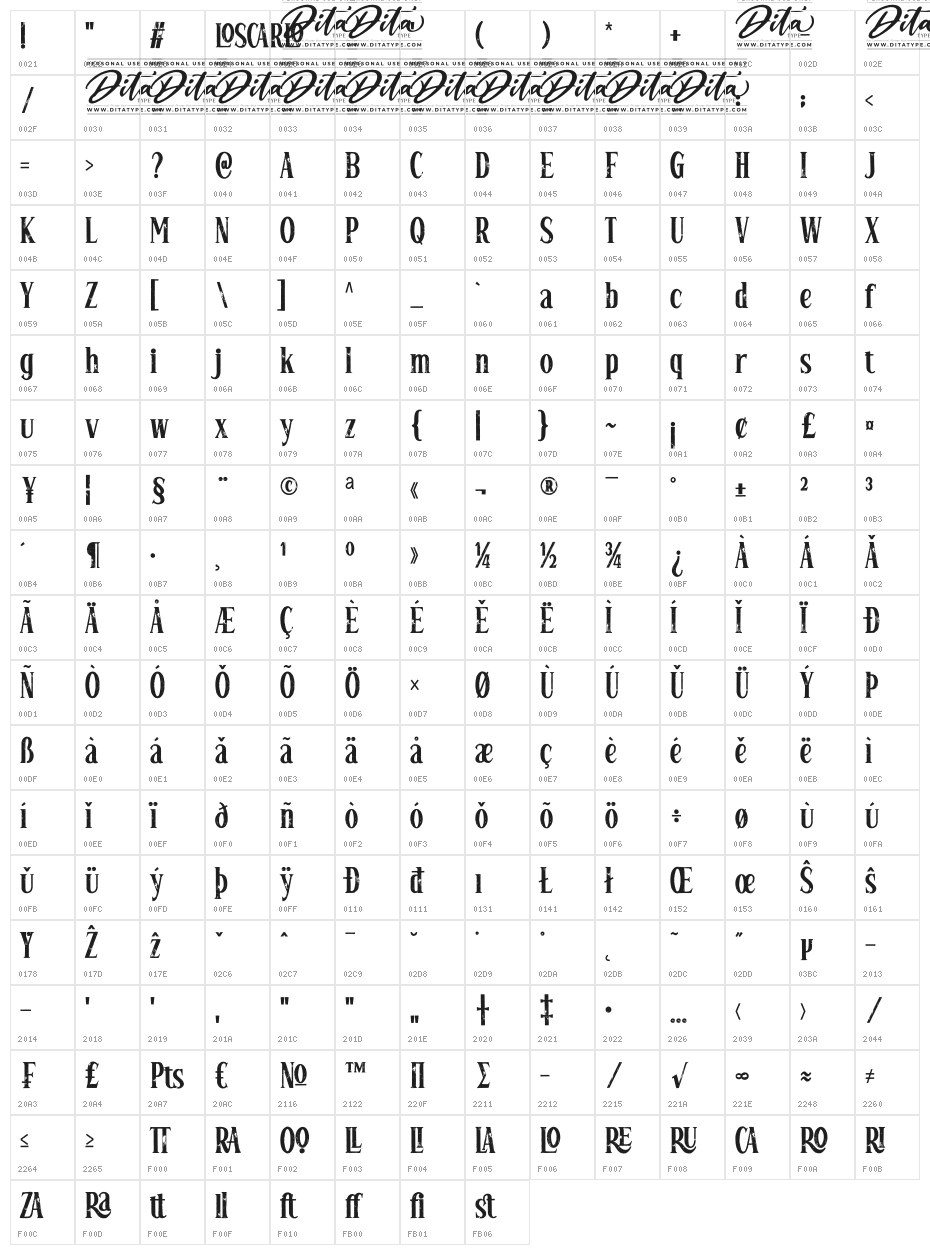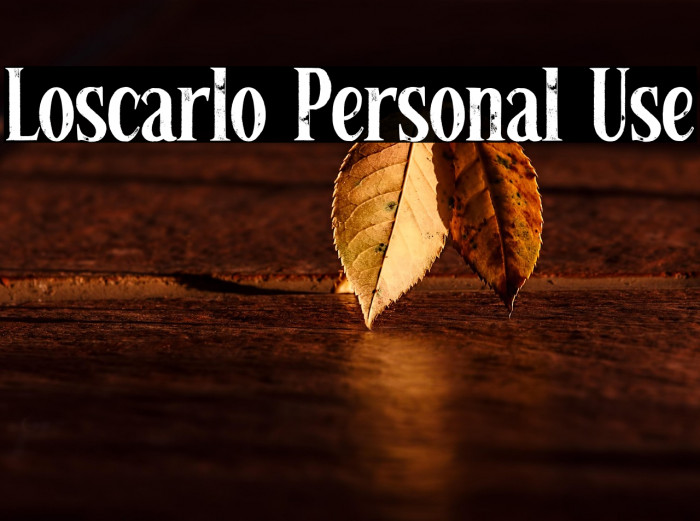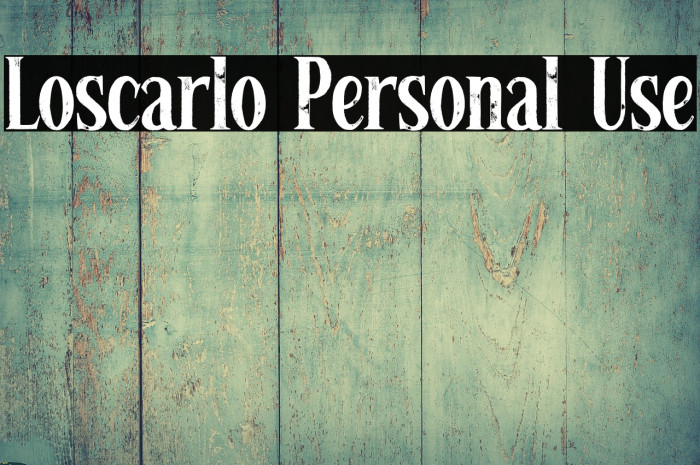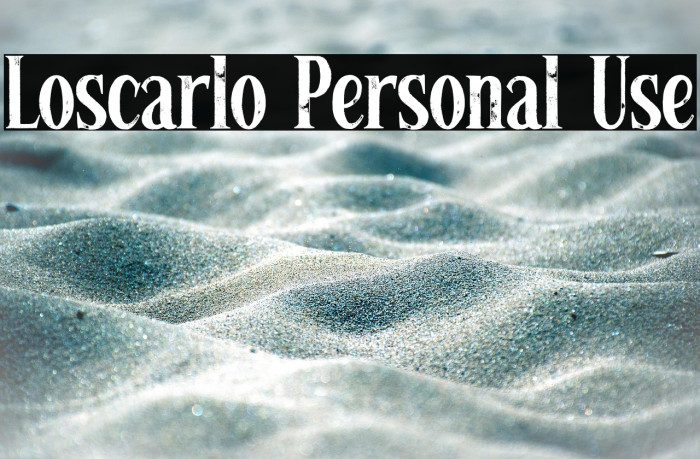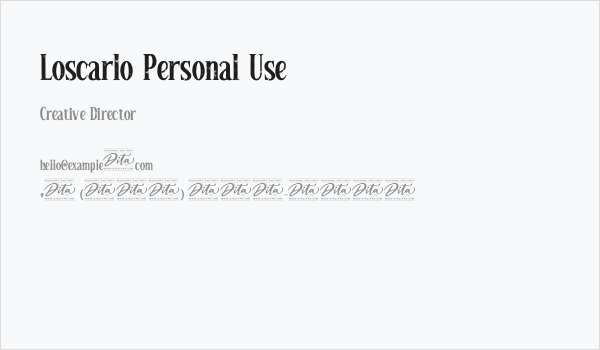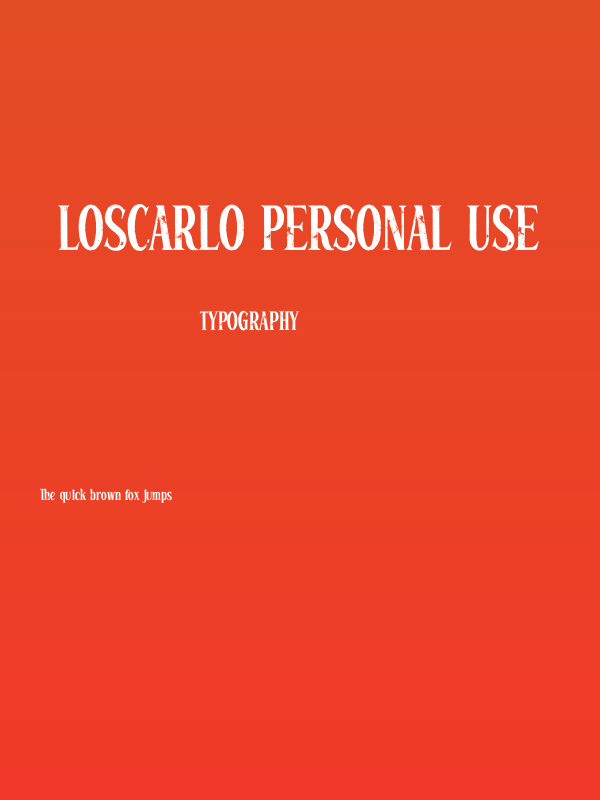
Loscarlo Personal Use Font
Loscarlo Personal Use Description
This font features a bold and distressed style, giving it a vintage and rugged appearance. The uppercase and lowercase letters are designed with a textured effect that mimics wear and tear, adding character and depth. The strokes are thick and uneven, contributing to its bold presence. The font includes a full set of uppercase and lowercase letters, numbers, and a selection of special characters. Its unique style makes it stand out, suitable for projects that require a strong and impactful visual statement.
| Proposed Projects | Ideal for poster designs, album covers, branding, and any project needing a vintage or grunge aesthetic. |